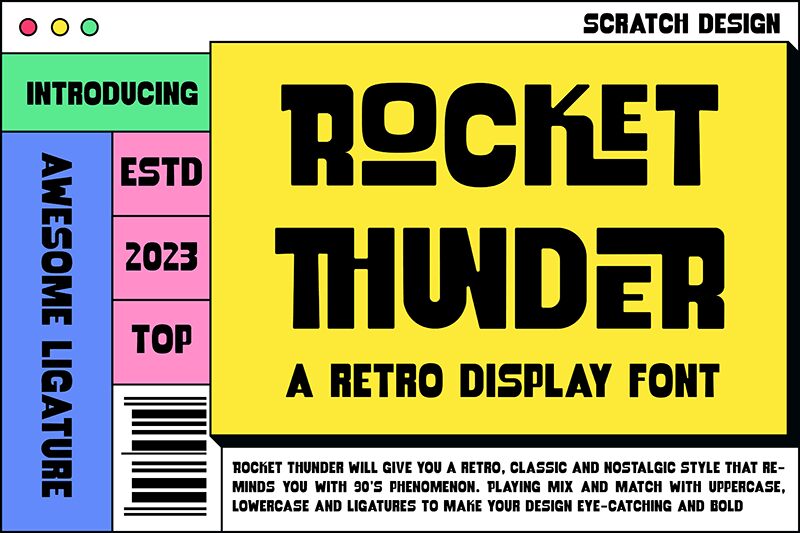
Rocket Thunder-DEMO Regular
Rocket Thunder font by Scratch Design is a bold condensed display typeface that guarantees to leave an impact. Geometric and industrial, this retro font has all its bases covered with a rounded smooth design encompassing each letter. Most importantly, it’s modern! Embrace the present and future as Rocket Thunder offers simplicity and constancy in every letter design.
This free retro font splendidly completes logotypes by adding style that reverberates from within. It also takes entertainment-related projects to another level whether they’re digital like video games or print ones like T-shirt designs that require a fantastic aesthetic for the young audience. Other usage ideas include magazines, apparel packaging, branding, book covers, posters/ flyers, headlines as well as advertisement signs.